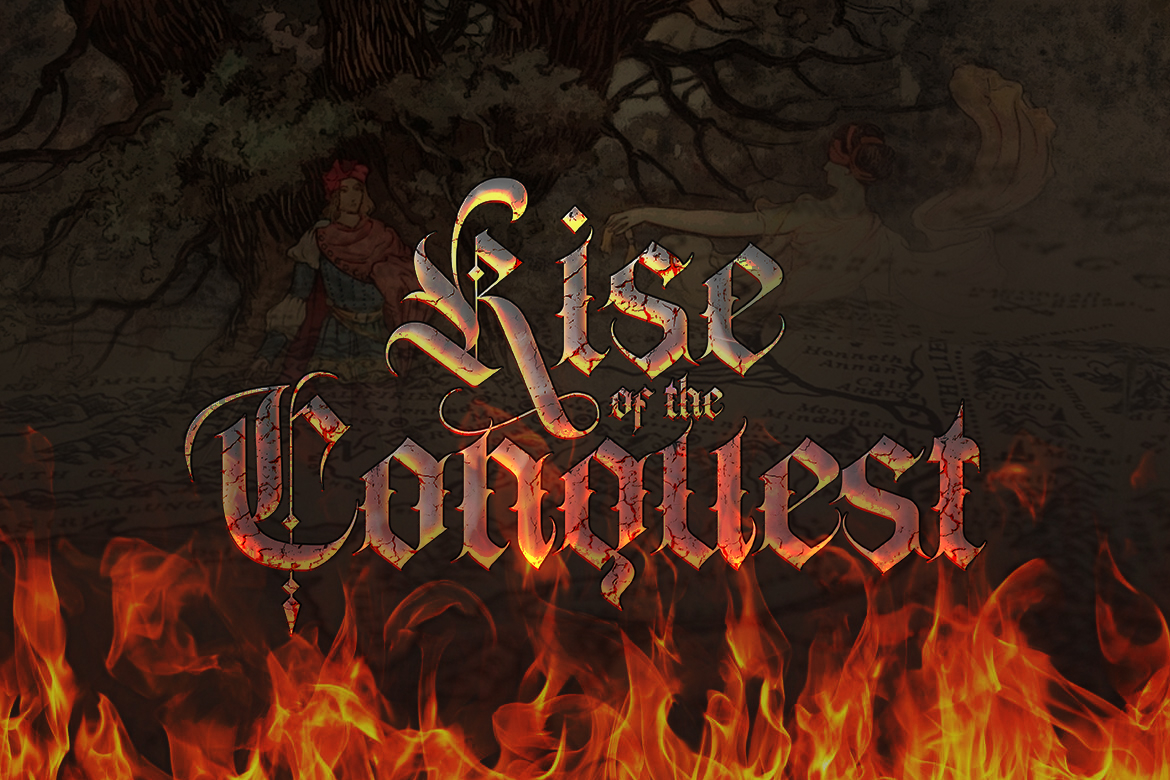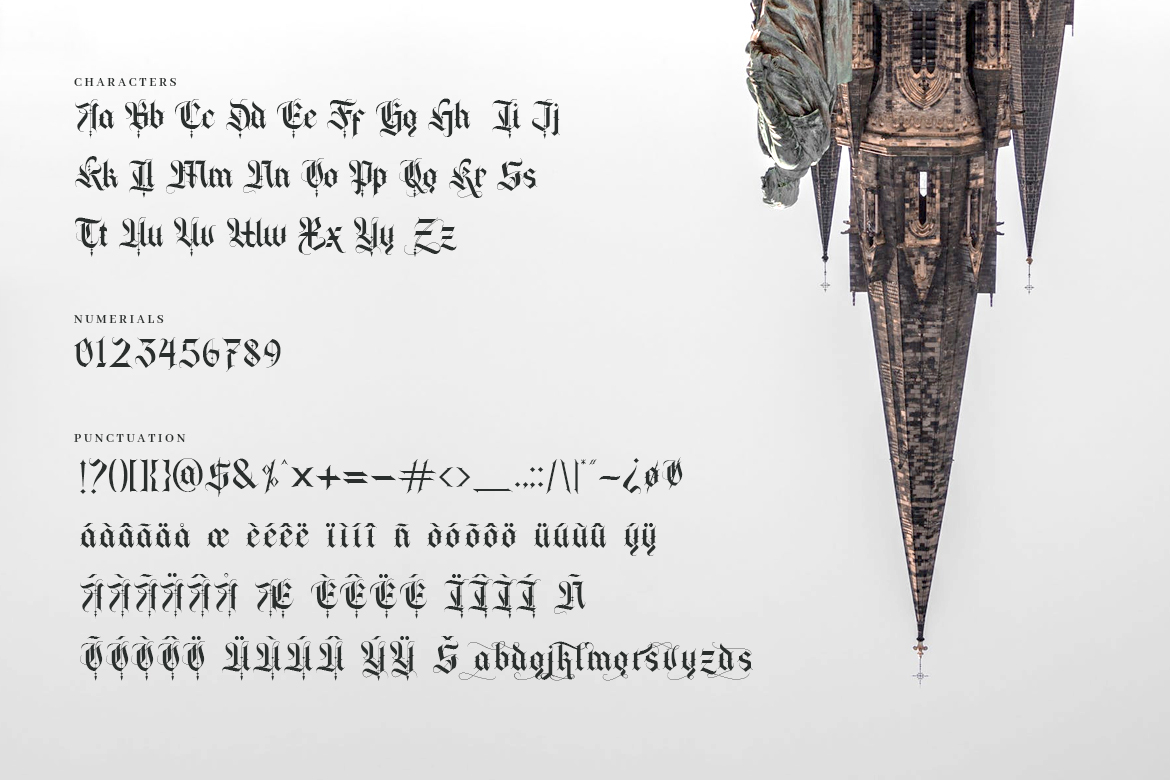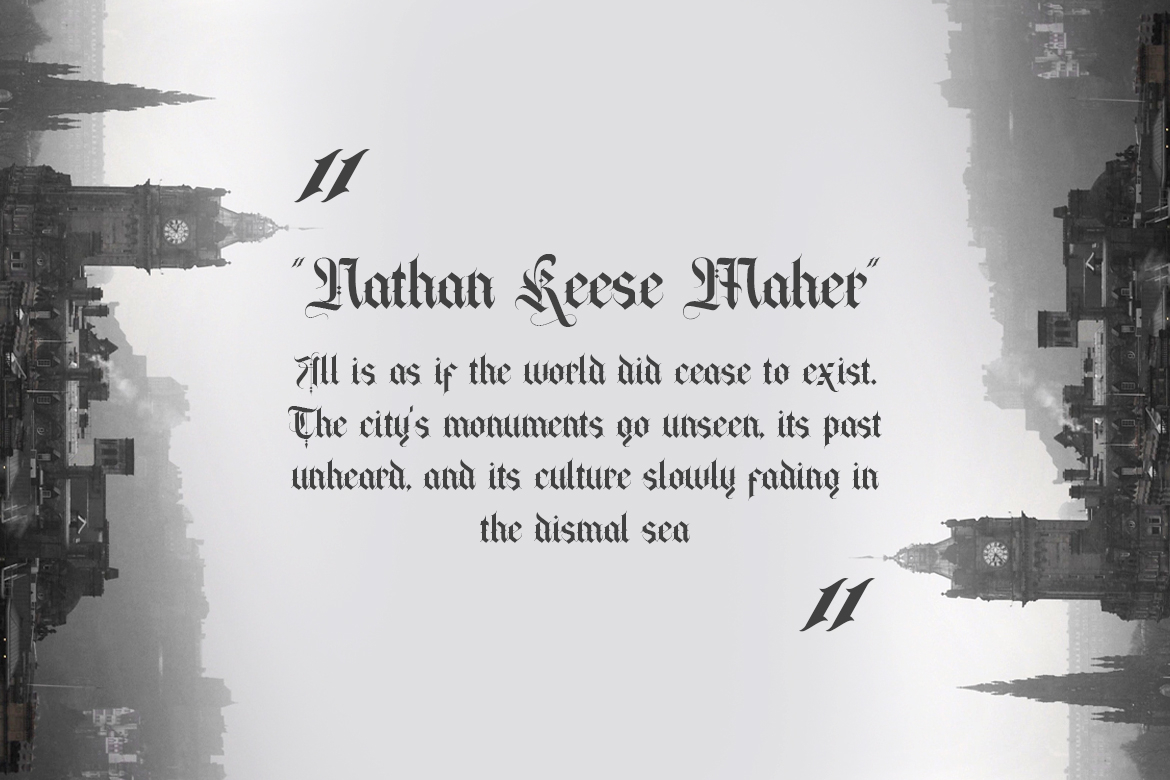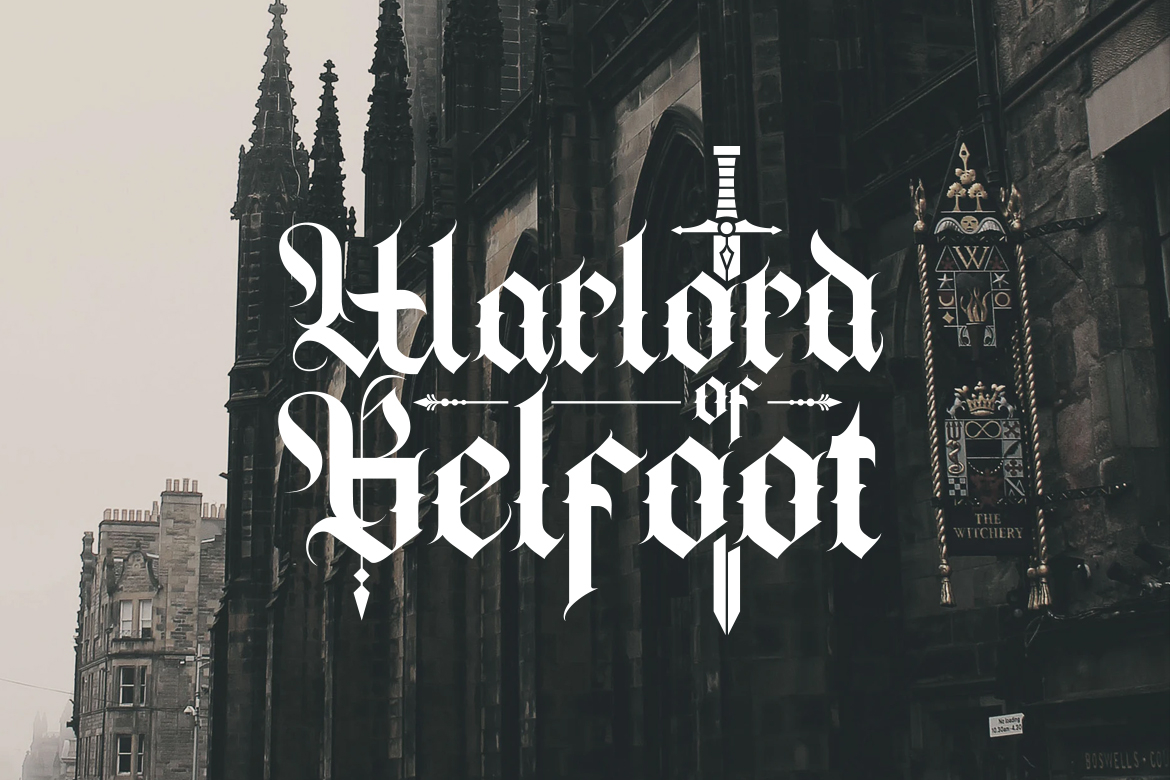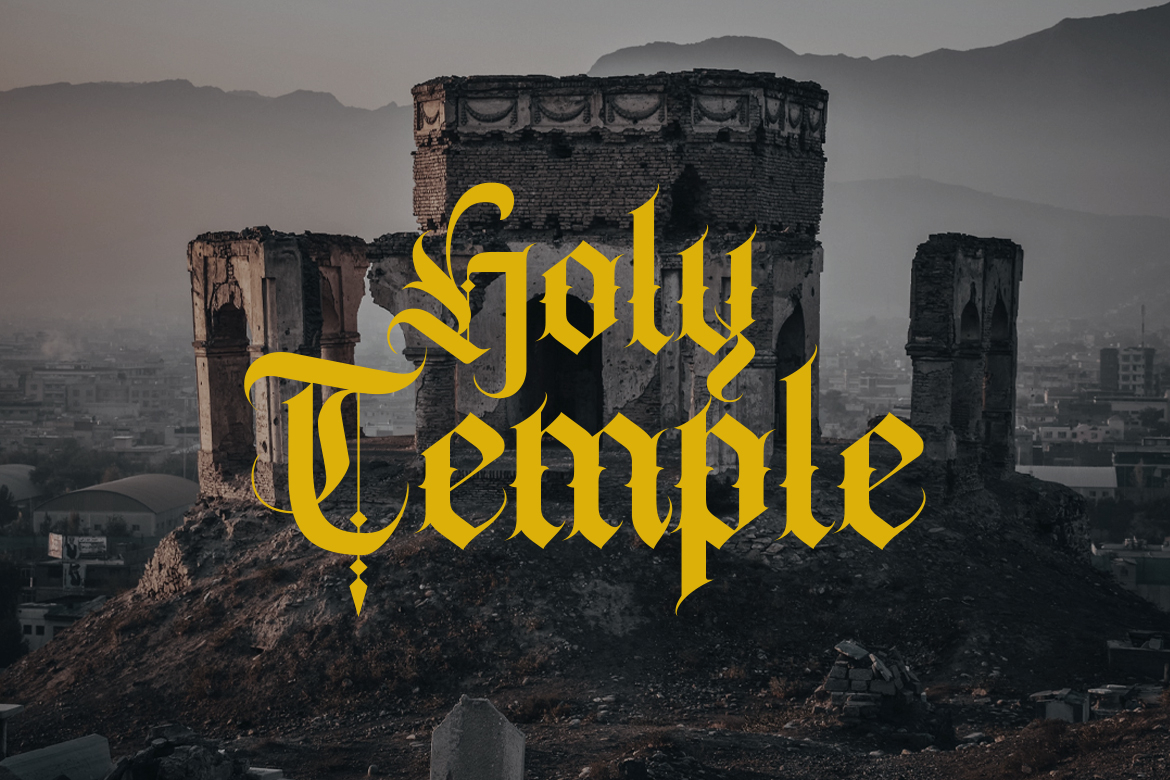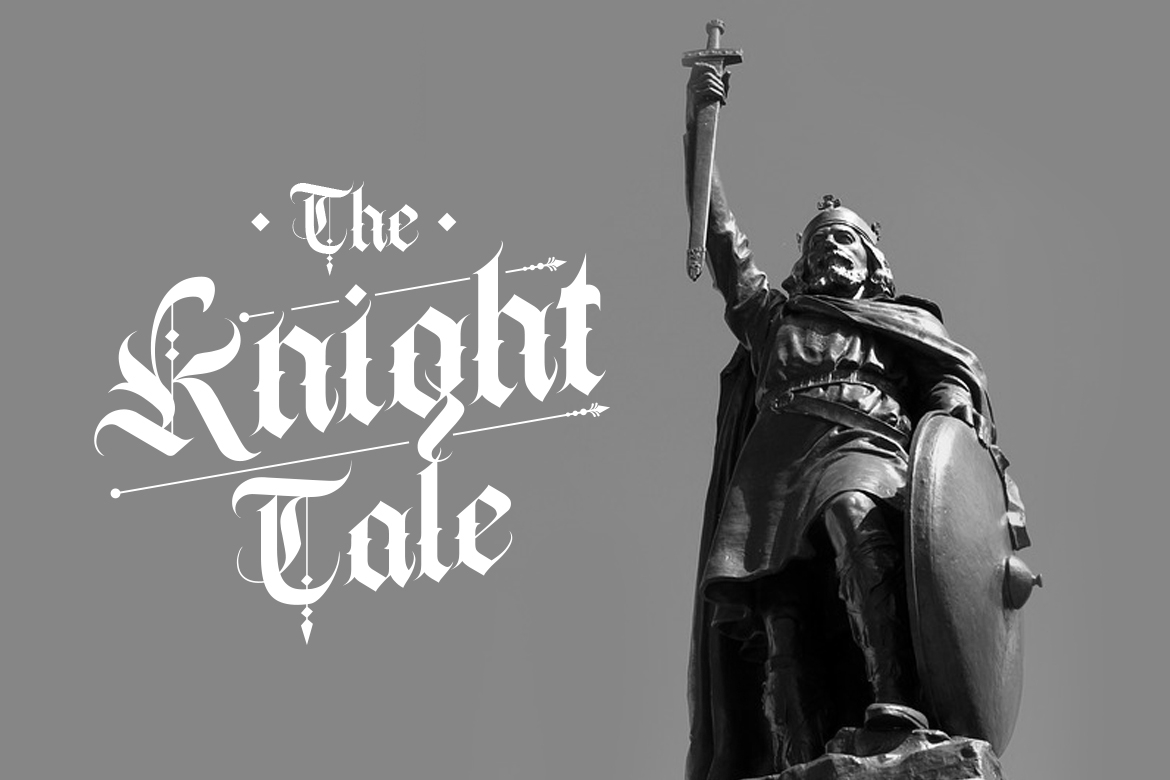
Cambridge Font
About Cambridge Font
Cambridge is an elegant and authentic blackletter font, inspired by a gothic style. This dazzling font will turn any creative idea into a standout!